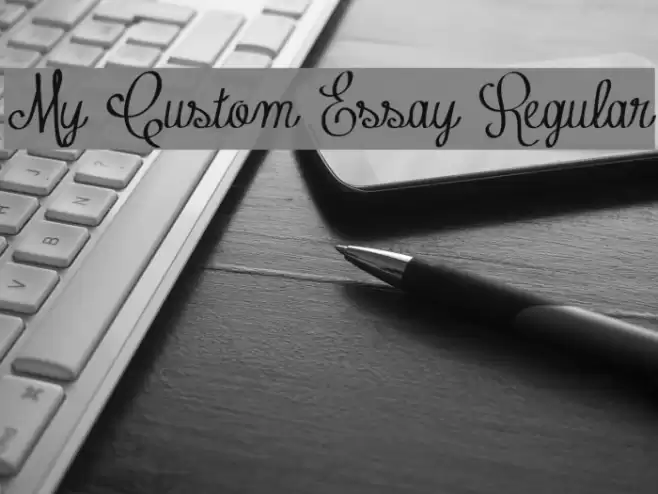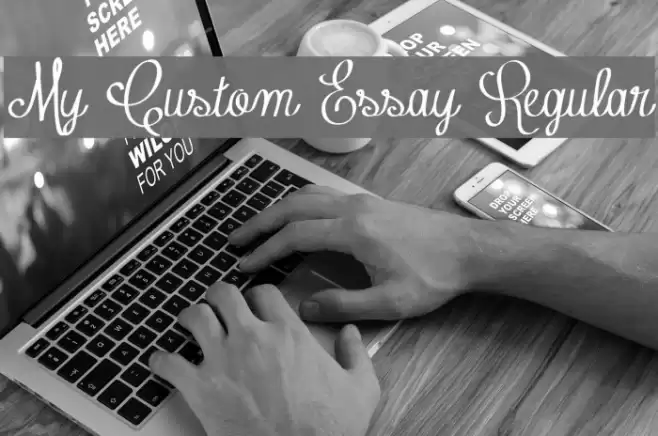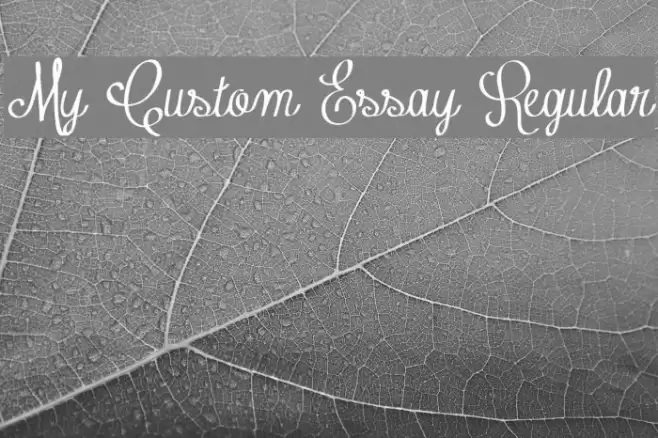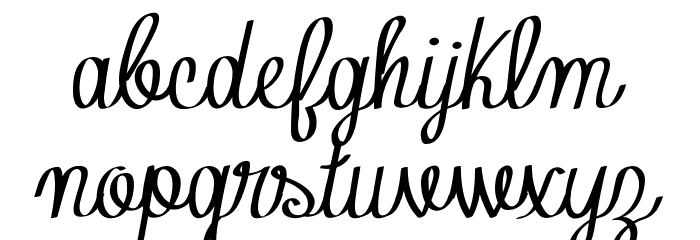
My Custom Essay Regular Font
My Custom Essay Regular Description
This elegant script font features intricate, flowing letterforms with a classic and sophisticated style. The uppercase letters are adorned with graceful loops and swirls, adding a decorative touch that enhances its visual appeal. The lowercase letters maintain a smooth, cursive flow, making it suitable for formal invitations, branding, and artistic projects. The font's design is consistent, with each character seamlessly connecting to the next, creating a harmonious and fluid appearance. Its ornate style is perfect for capturing attention and conveying a sense of luxury and refinement.
An elegant script font with intricate, flowing letterforms and decorative swirls from Uncategorized fonts.
- Proposed Projects: Ideal for wedding invitations, luxury branding, artistic projects, and elegant signage.
- Overall Style: Classic
- Use Case: Logos, Invitations, Decorative text